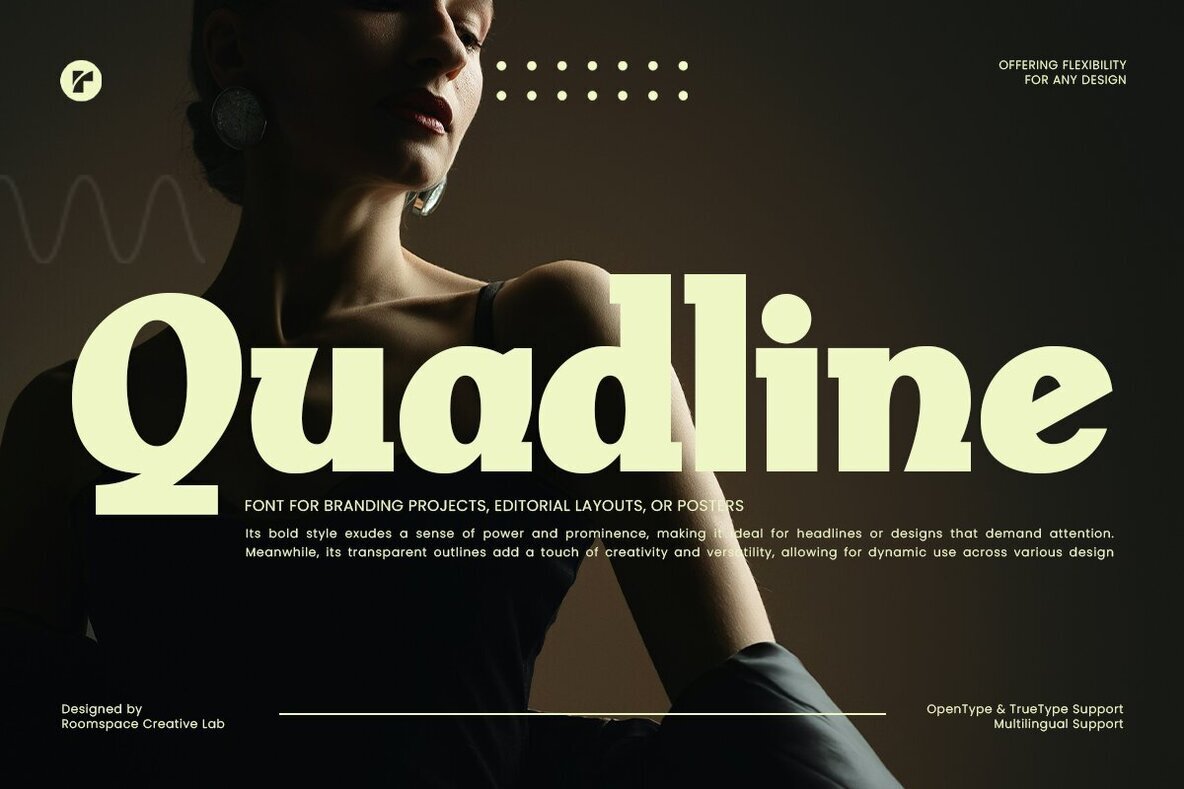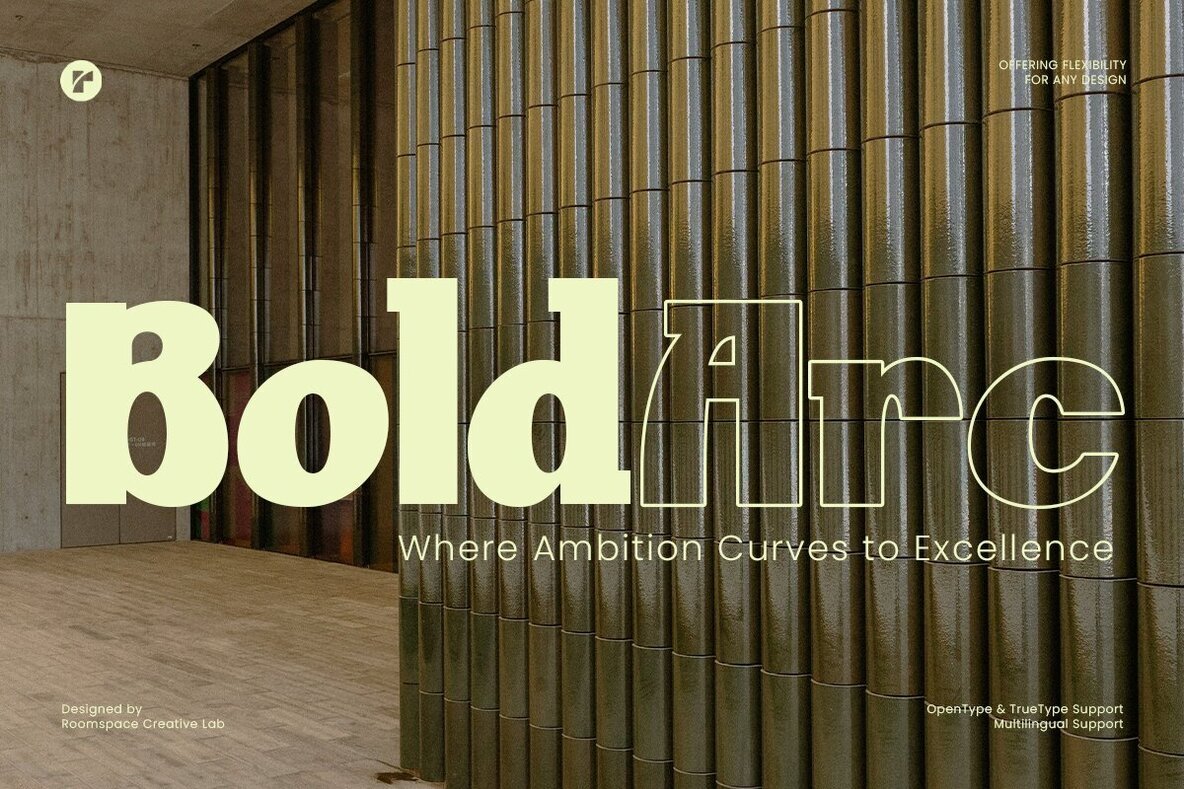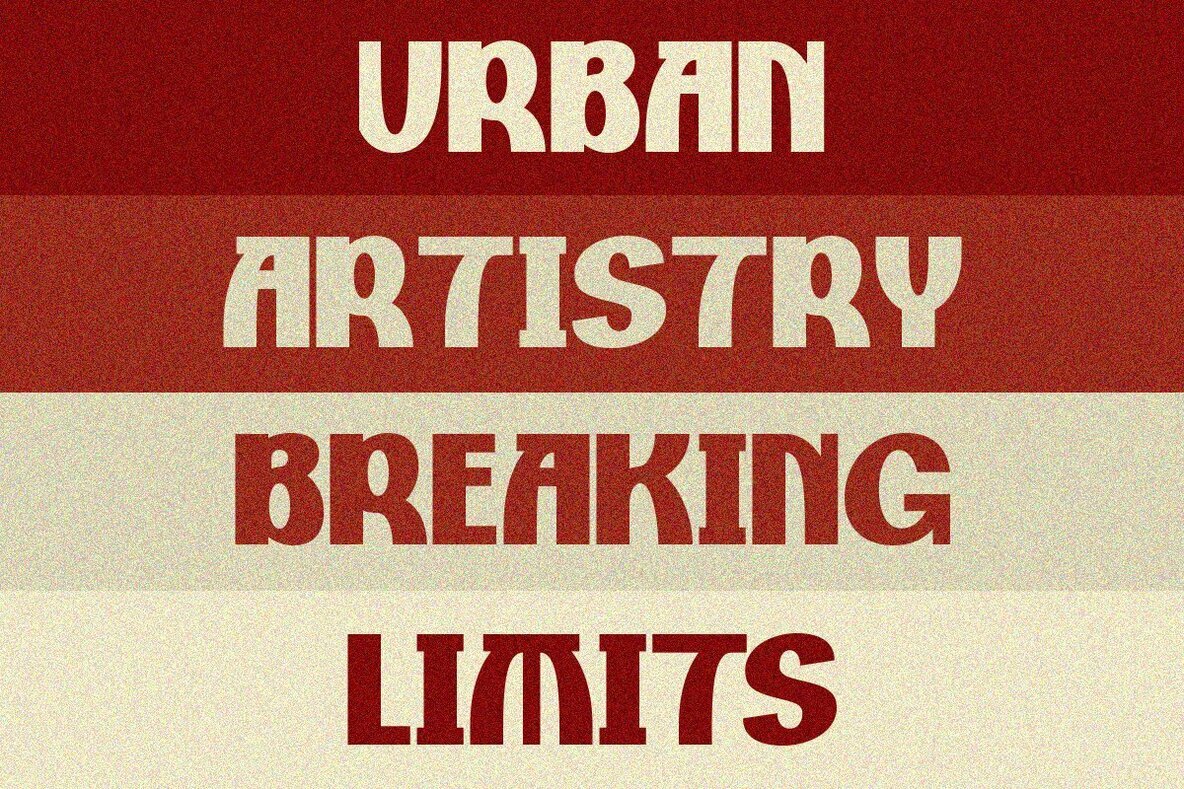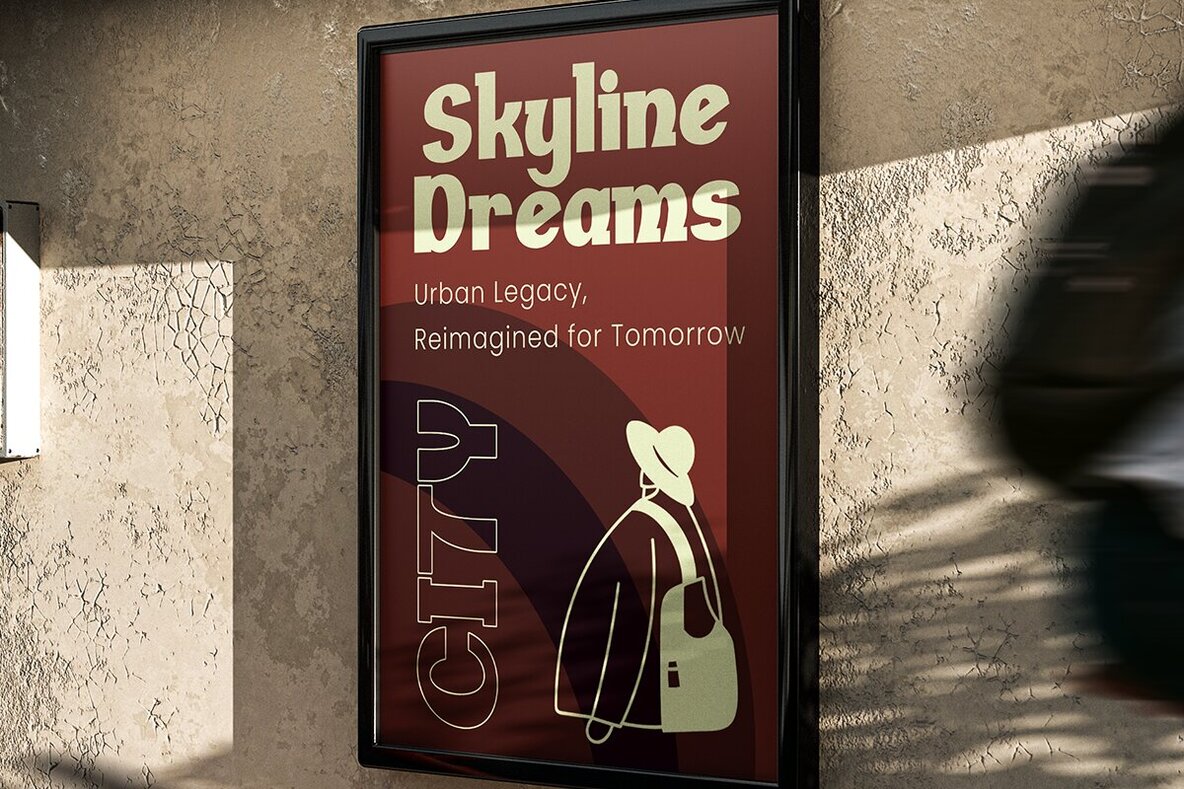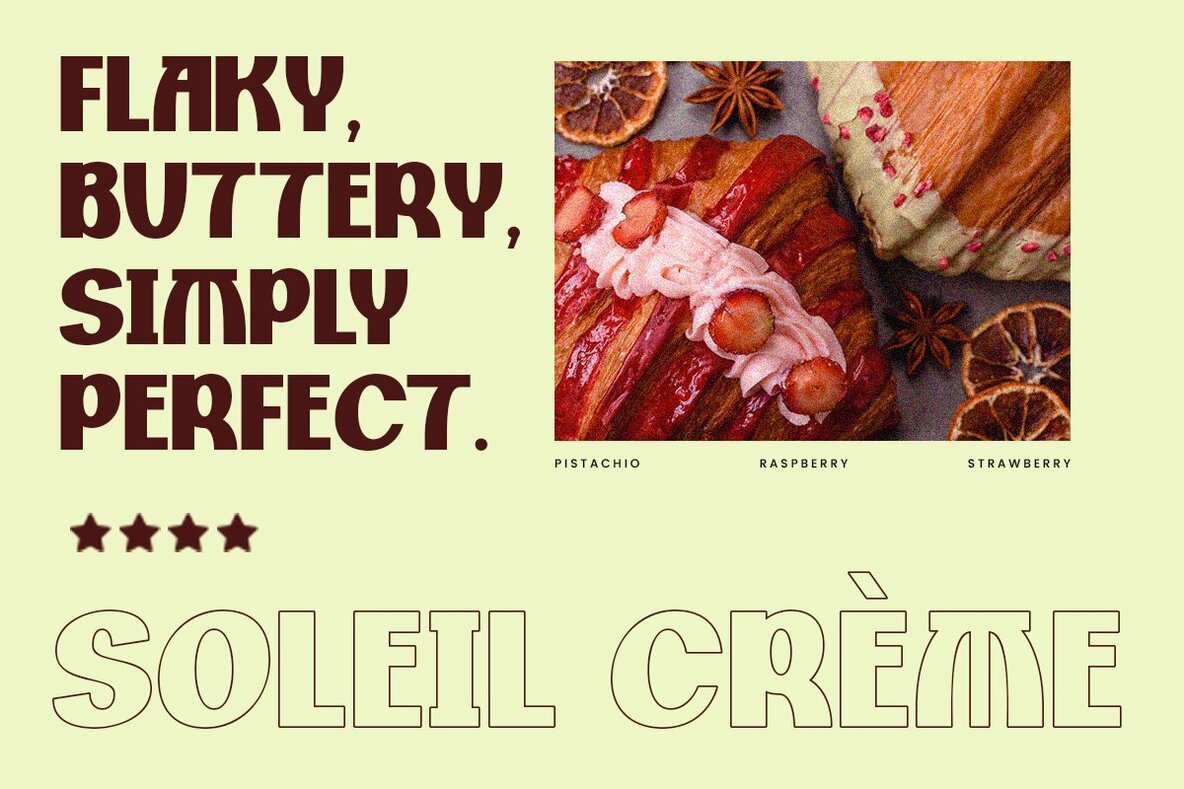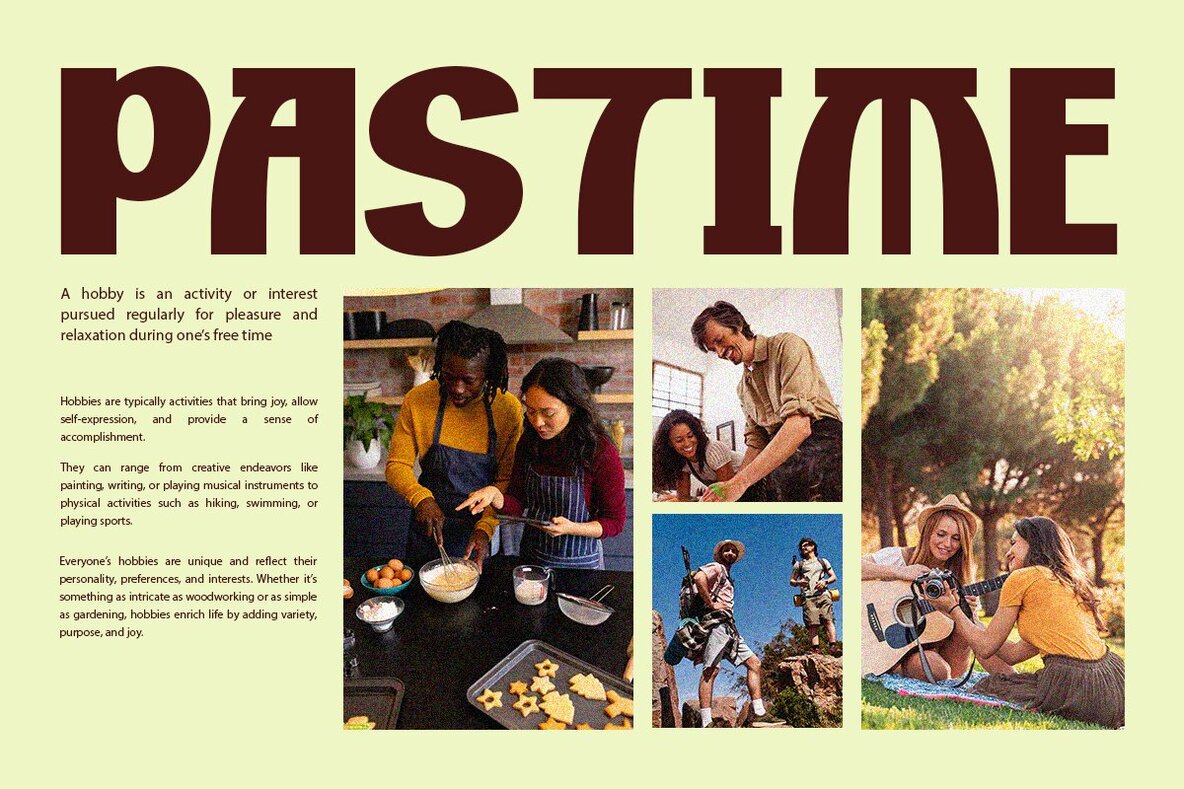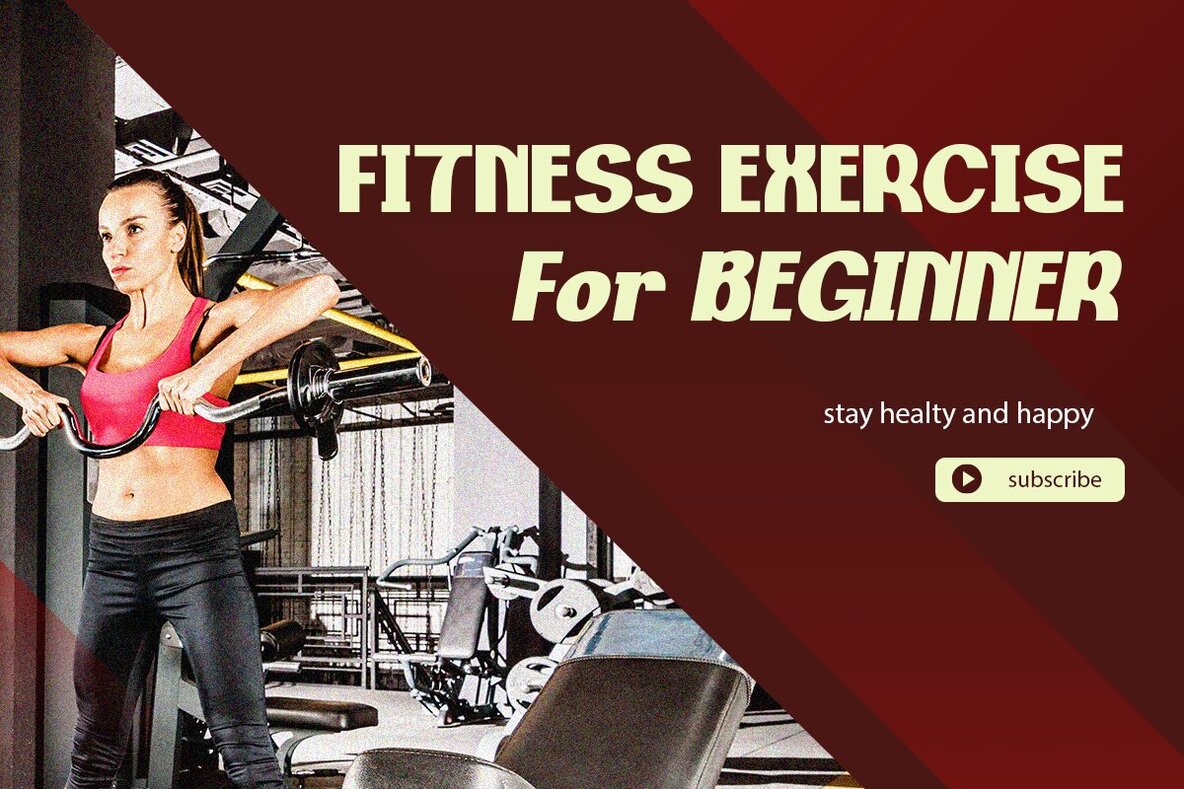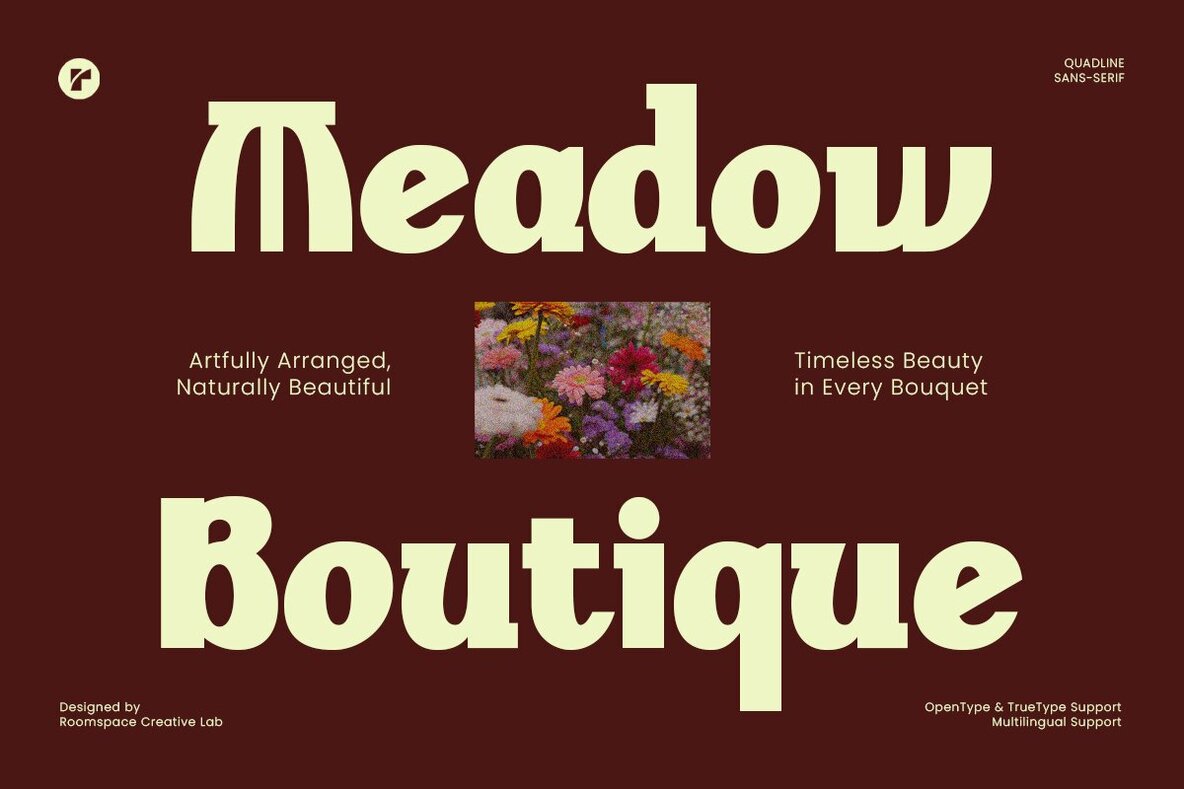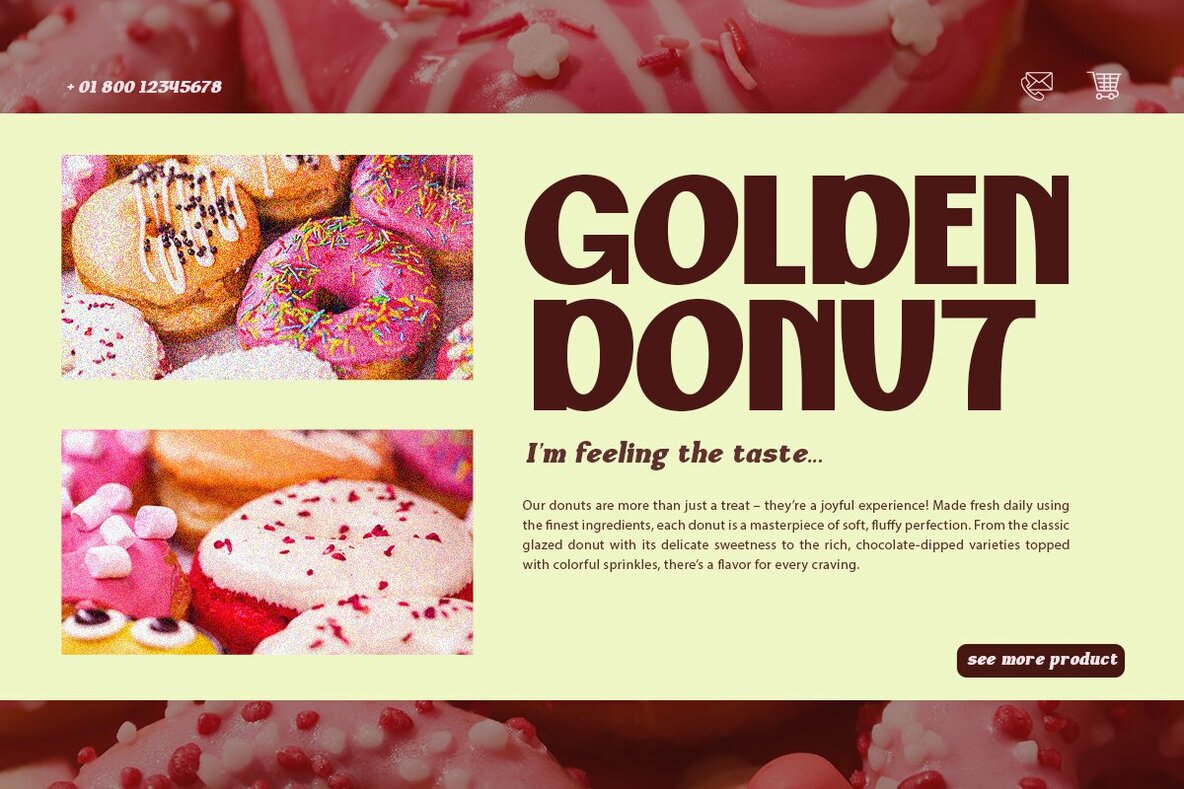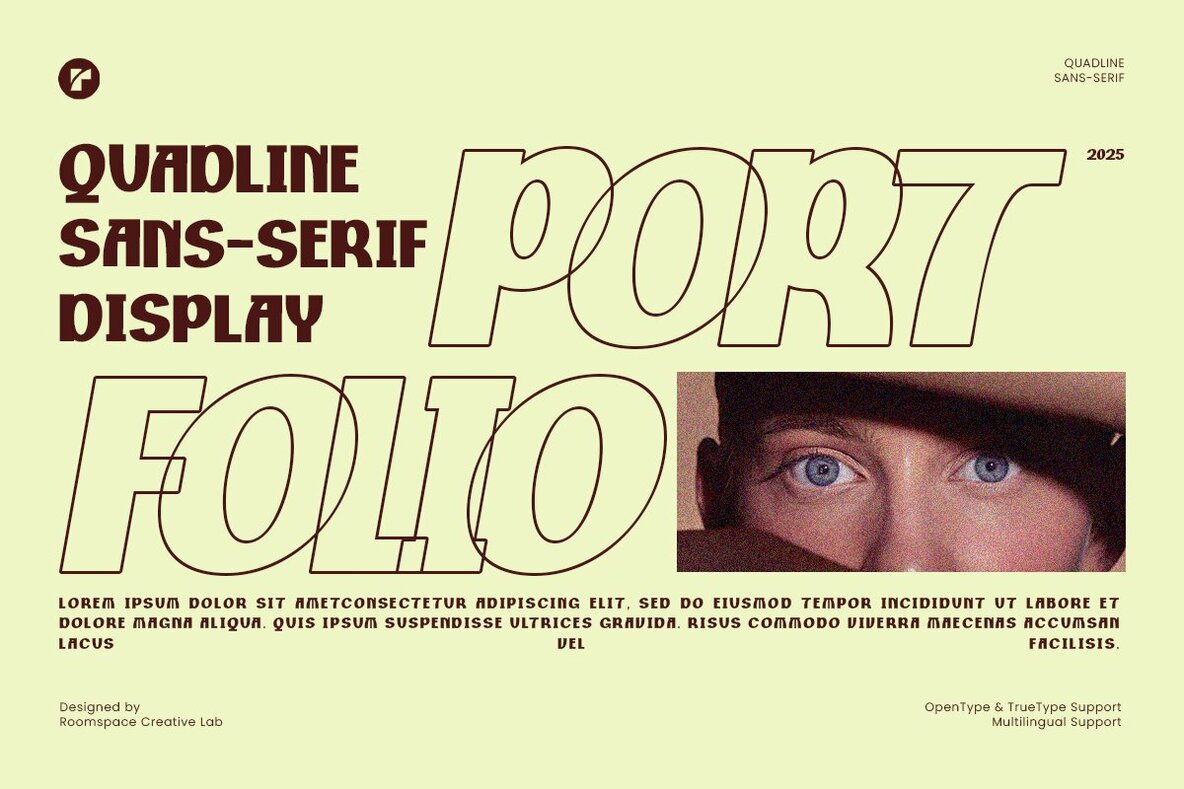
Quadline Font
Quadline, a bold sans serif font built for strength and versatility. Perfect for headlines, posters, branding projects, and editorial layouts, Quadline’s bold and commanding design captures attention while maintaining readability. Its clean yet striking style makes it ideal for projects that need a powerful visual presence. Whether you’re creating posters that pop, attention-grabbing advertisements, or bold social media graphics, Quadline offers the perfect balance of creativity and clarity. This versatile typeface offers: